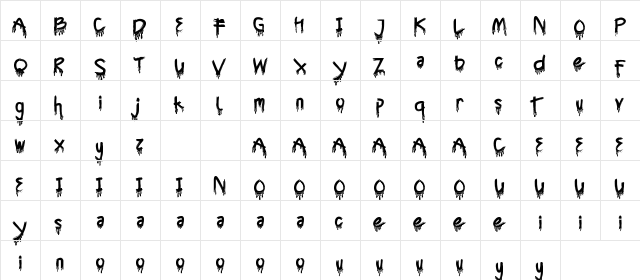
Cyttah Demo Splatter Regular Font Preview
Cyttah Demo Splatter Regular
Cyttah Demo Splatter Regular Font Details
| Foundry | Edric Studio |
| Designer | Renata Insan C |
Design Context for Cyttah Demo Splatter Typeface
Cyttah Demo Splatter is a composed and adaptable typeface that performs quietly and consistently across a wide range of design contexts.